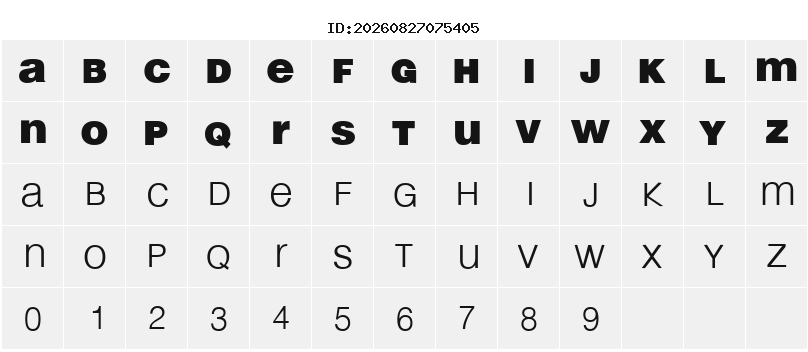
About 442-CAI978.ttf
442-CAI978.ttf is a modern, elegant sans-serif font designed for ultimate readability and visual harmony. Perfect for branding, headlines, web design, and print materials.